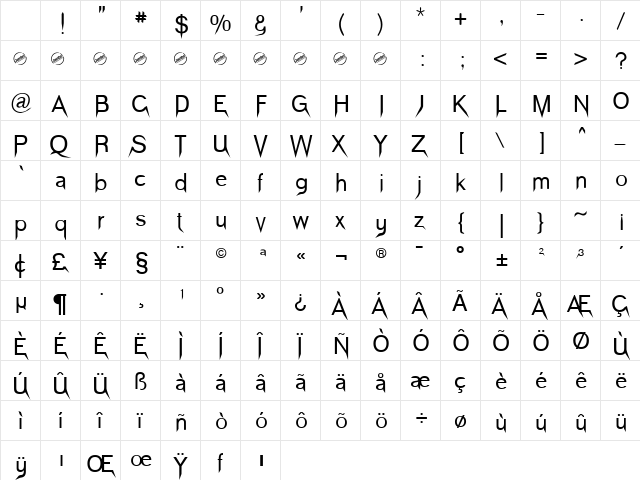
Complete Copyright (c) 2014 by Jambo!. All rights reserved. Regular glyph index. Displaying only characters natively supported by Copyright (c) 2014 by Jambo!. All rights reserved. Regular font.
Copyright (c) 2014 by Jambo!. All rights reserved. is a composed and adaptable typeface that performs quietly and consistently across a wide range of design contexts.